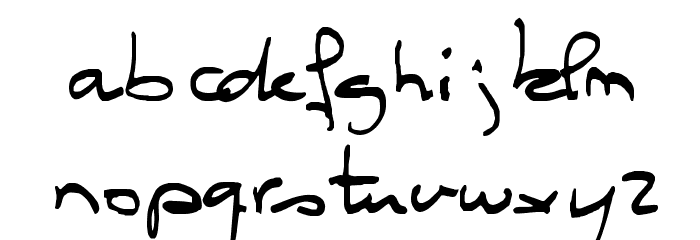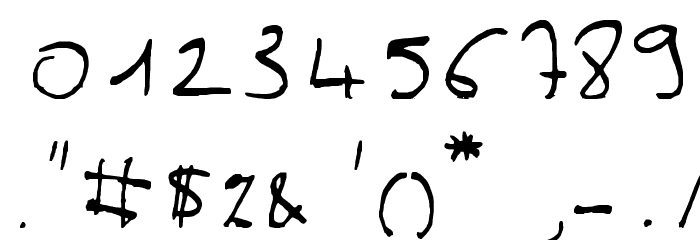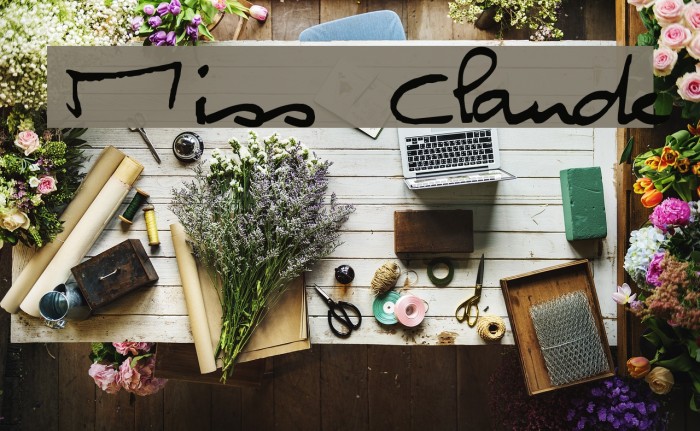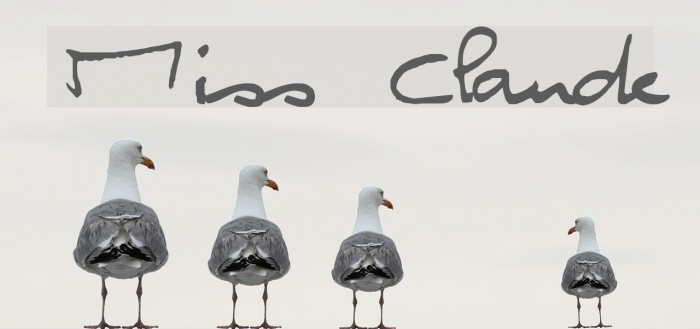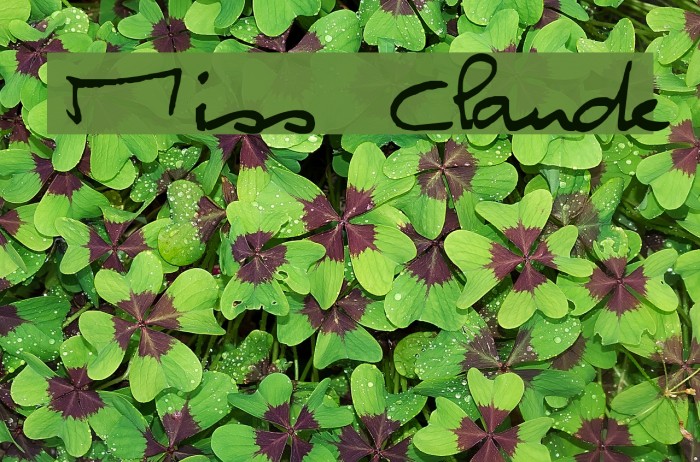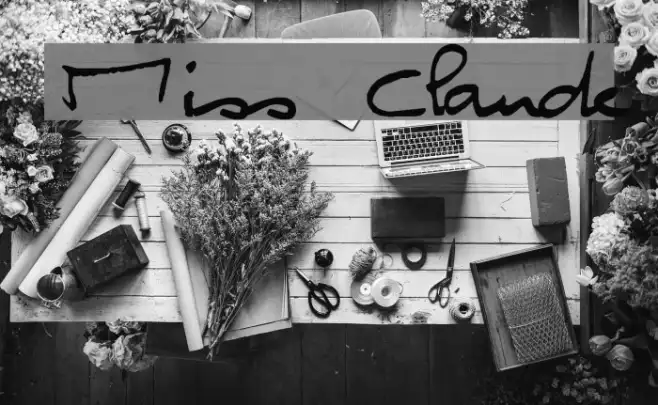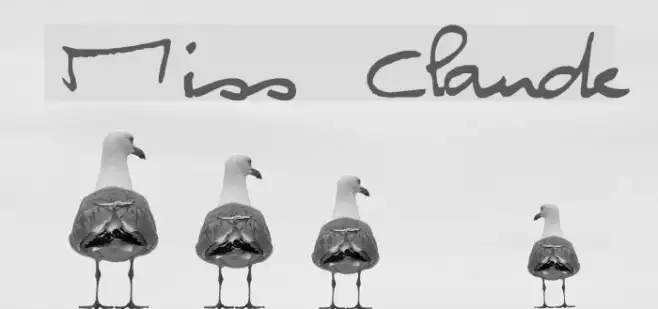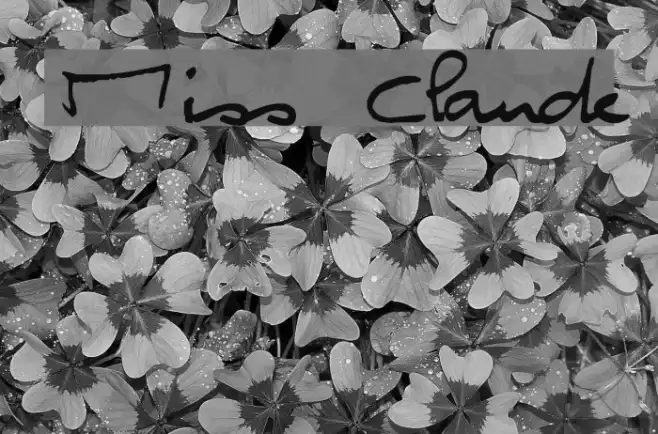
Miss Claude Font
This font exudes a casual, handwritten style with a playful and informal character. The letters are unevenly spaced and vary in size, giving it a dynamic and spontaneous feel. The strokes are fluid and slightly irregular, mimicking the natural flow of handwriting. This font features a mix of sharp and rounded edges, adding to its quirky and unique appearance. The uppercase letters are bold and prominent, while the lowercase letters maintain a consistent flow. Numbers and special characters are crafted with the same playful style, ensuring a cohesive look across all elements.
A playful, handwritten font with a casual and dynamic style.
- Proposed Projects: Ideal for personal notes, creative projects, greeting cards, and informal branding.
- Character Spacing: Irregular
- Overall Style: Casual
- Use Case: Creative projects, Informal branding